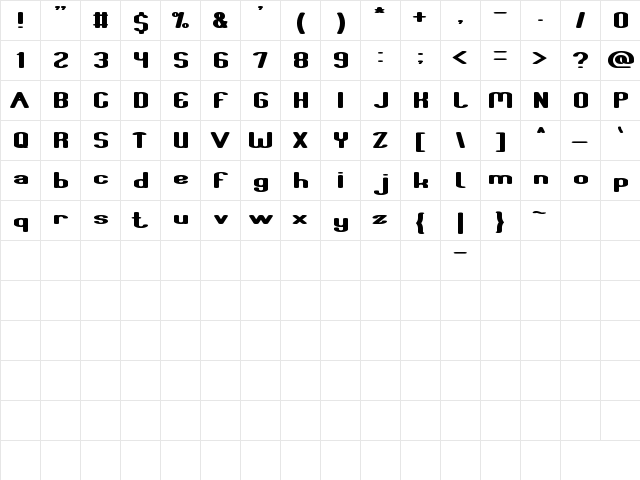
Fun Raiser Regular
Design Context for Fun Raiser Typeface
Fun Raiser trades formality for fun, with bouncy, characterful letterforms that bring warmth and energy to any project.
Font Pairing: Pairs well with a rounded or humanist sans for body copy, maintaining the friendly tone without relying on Fun Raiser to carry extended reading.
Pro Tip: Avoid using Fun Raiser for long passages of text — it works best for headlines, labels, and short calls to action.